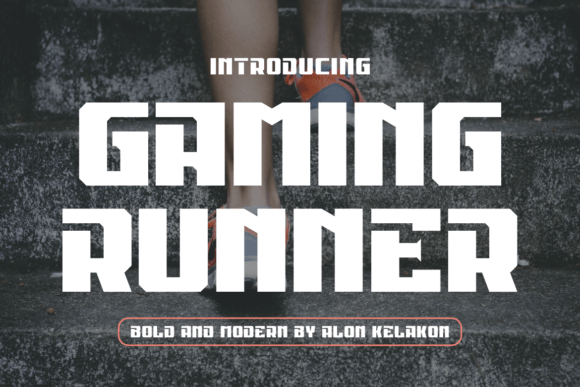
Prepare to be captivated by the Gaming Runner Font, a revolutionary sans serif font that embodies boldness and modernity. Its striking presence and clean lines are sure to turn heads and make a lasting impression. Designed by the talented alonkelakon, this font is a masterpiece crafted with precision and passion.
Unleash your creativity and let Gaming Runner Font elevate your designs to new heights. Its versatility knows no bounds, making it the perfect choice for a wide range of projects. From sleek logos and eye-catching posters to captivating movie titles and stylish album covers, Gaming Runner Font is your ultimate design companion.
Immerse yourself in the world of typography and experience the transformative power of Gaming Runner Font. Its bold strokes and unwavering presence will add an instant touch of sophistication to your work. Whether you're a seasoned designer or just starting out, this font is your gateway to creating designs that speak volumes.
With Gaming Runner Font, you'll discover a font that goes beyond mere aesthetics. Its carefully crafted letterforms and harmonious flow create a visual symphony that will captivate your audience. Let your designs come alive with the energy and movement embodied in every character of this remarkable font.
Don't settle for ordinary fonts that blend into the background. Embrace the power of Gaming Runner Font and watch your designs take center stage. Its unwavering presence will leave an indelible mark on your audience, ensuring that your message is heard loud and clear.